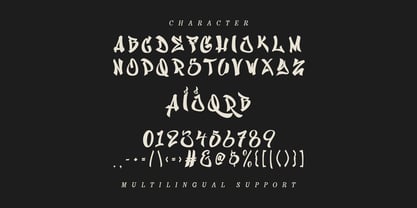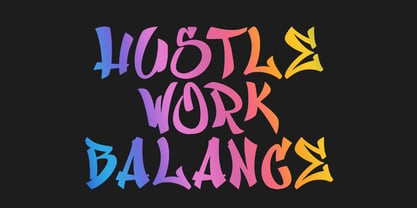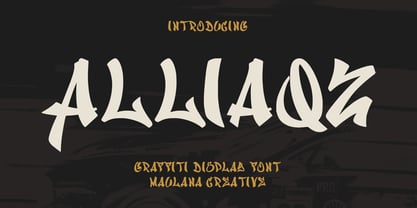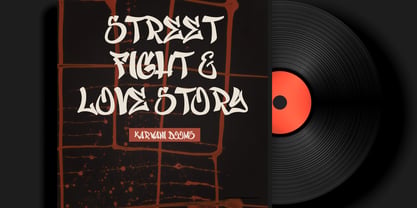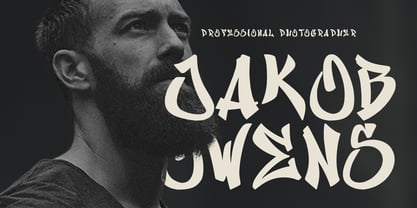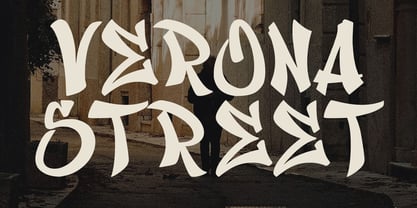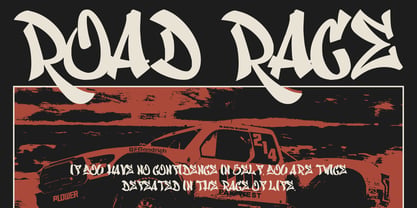
MC Alliaqz
by Maulana Creative
The MC Alliaqz Font Family was designed by Gilang Maulana and published by Maulana Creative. MC Alliaqz contains 1 styles. More about this family
Alliaqz is a graffiti handwritten display font. With bold stroke, fun character with a bit of alternates. To give you an extra creative work. Alliaqz font support multilingual more than 100+ language. This font is good for logo design, Social media, Movie Titles, Books Titles, a short text even a long text letter and good for your secondary text font with sans or serif. Make a stunning work with Alliaqz font.
Designers: Gilang Maulana
Foundry: Maulana Creative